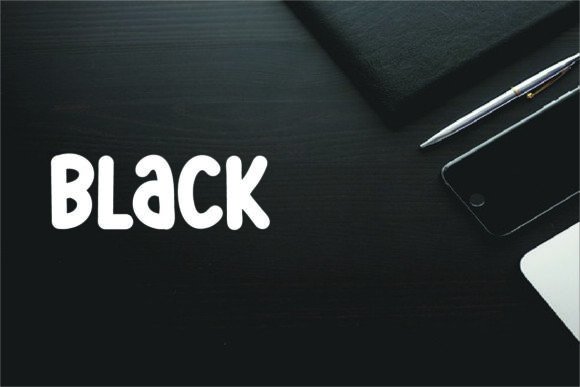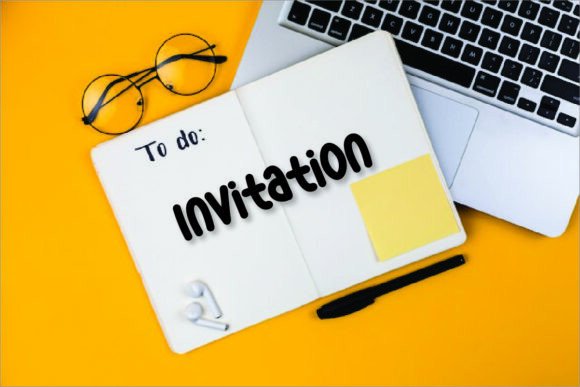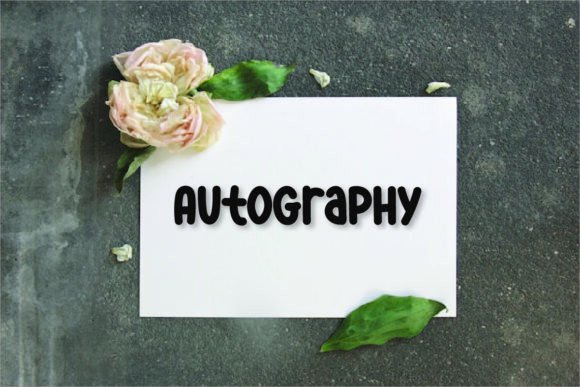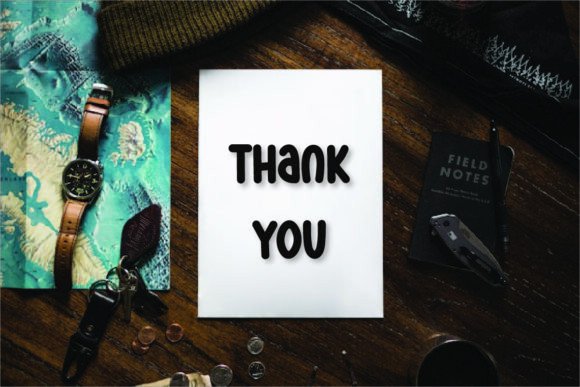
Introduction to Seasoning Font
Seasoning is a festive typeface perfect for holiday projects.
Whether youโ€™re designing greeting cards, banners, social media graphics, or marketing materials, this font adds a touch of Christmas charm to your text, spreading joy and warmth during the holiday season .
Seasoning Font offers exceptional quality and versatility, making it a valuable addition to your design toolkit. Whether you’re creating for personal projects or commercial use, Seasoning Font delivers professional results.